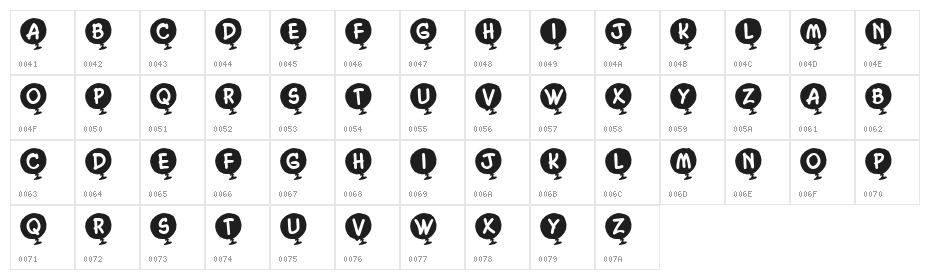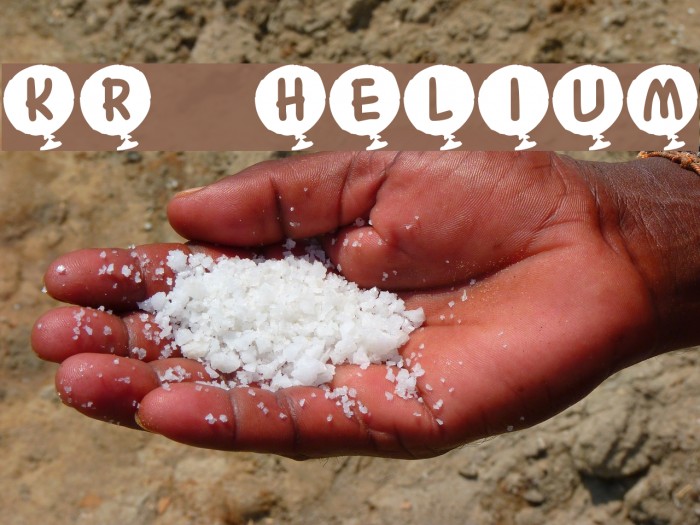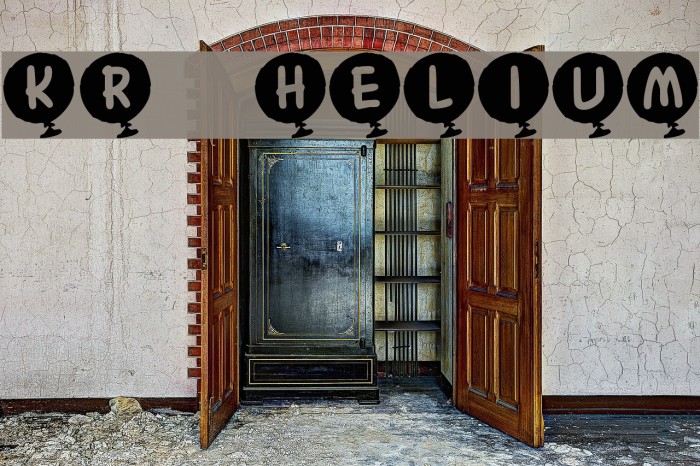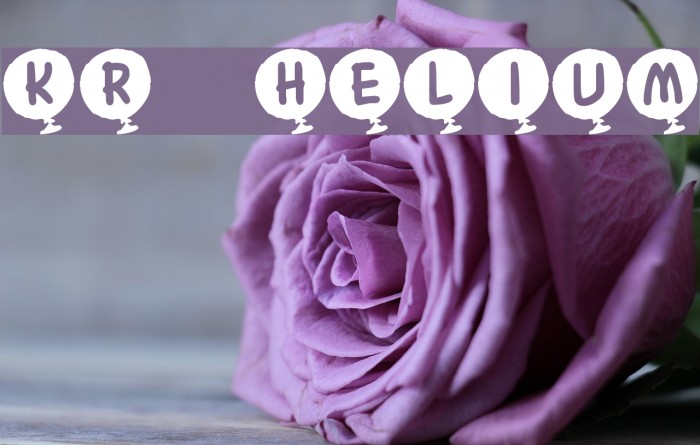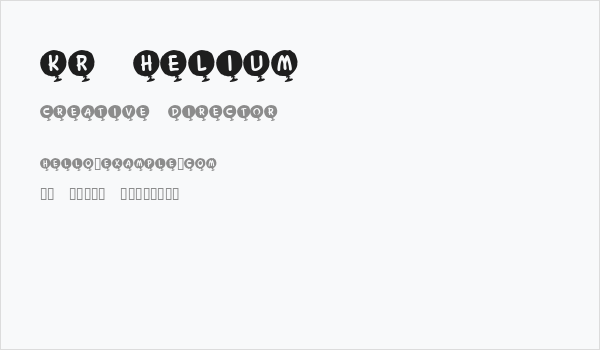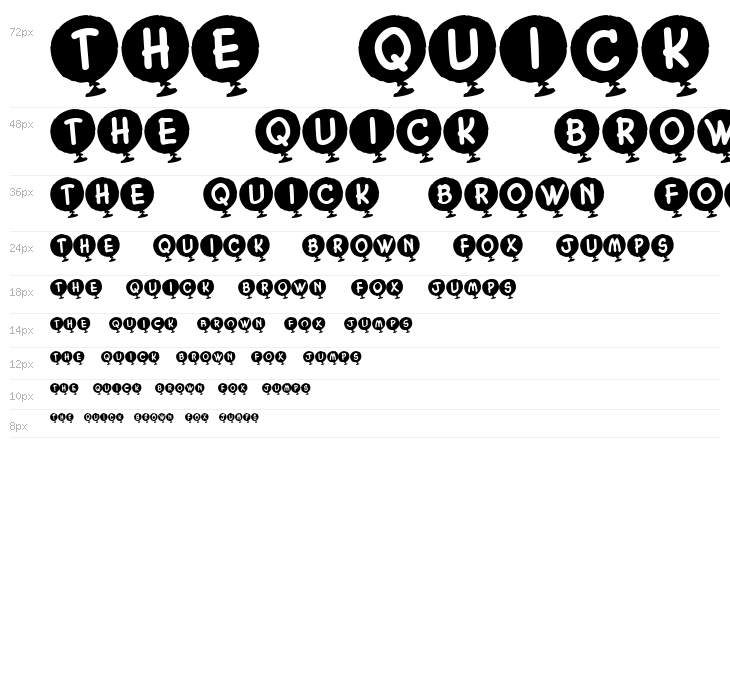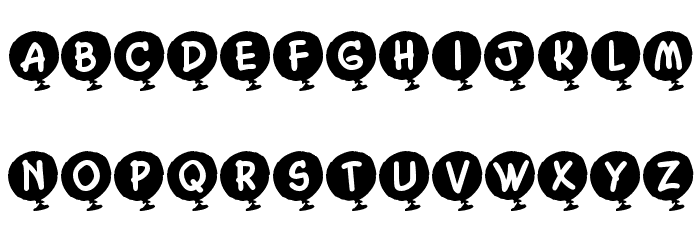
KR Helium Font
KR Helium Description
This playful and whimsical font features characters enclosed within balloon shapes, giving it a festive and lighthearted appearance. The letters are bold and rounded, with a consistent thickness that enhances readability while maintaining a fun aesthetic. The balloon motif is consistent across both uppercase and lowercase letters, as well as numbers, creating a cohesive and thematic design. This font is perfect for projects that require a joyful and celebratory touch, such as children's party invitations, playful branding, or event posters. The unique style of the font makes it stand out, adding a sense of fun and creativity to any project.
| Overall Style | Playful, Festive |
| Proposed Projects | Ideal for children's party invitations, playful branding, and event posters. |